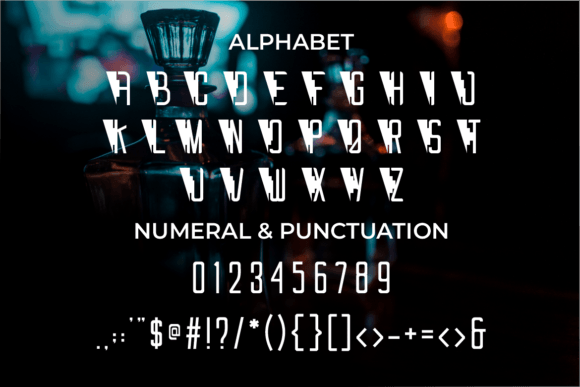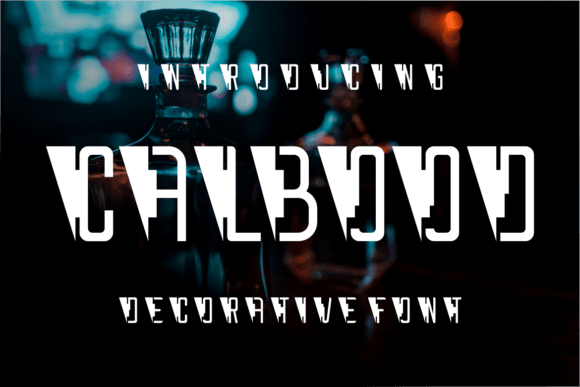
Discover the Unique Charm of Calbood Font: Elevate Your Designs with this Versatile Display Font
In the world of typography, fonts play a crucial role in conveying messages, expressing emotions, and creating visual identities. For designers, crafters, and creative enthusiasts, finding the right font can make all the difference in bringing their ideas to life. If you’re on the hunt for a font that can add a touch of personality and flair to your projects, look no further than Calbood Font. This cool and incredibly interesting display font is about to become your new favorite asset, capable of enhancing any creation with its unique charm.
What Makes Calbood Font Stand Out?
Calbood Font is not just another addition to the vast sea of typefaces. Its distinctiveness lies in its ability to blend style with versatility, making it suitable for a wide range of projects. Whether you’re working on a branding campaign, crafting a poster, designing a website, or creating digital content, Calbood Font can adapt and shine. Its unique design elements ensure that it stands out in any context, grabbing attention and leaving a lasting impression.
The Versatility of Calbood Font
One of the key strengths of Calbood Font is its incredible versatility. It’s a display font that can tackle various themes and topics with ease, transforming your designs and adding a layer of sophistication or playfulness, depending on the project’s needs. From modern and sleek to vintage and quirky, Calbood Font can embody the essence of your message, making it more engaging and memorable.
Enhance Your Creations with Calbood Font
Adding Calbood Font to your font library is akin to having a powerful tool at your disposal, ready to elevate your designs and creations. Here are a few ways Calbood Font can enhance your work:
- Branding: Use Calbood Font for logos, business cards, or any branding material to give your brand a unique voice and aesthetic.
- Digital Content: Make your social media posts, blog headers, and website titles pop with Calbood Font’s distinctive style.
- Print Materials: Whether it’s posters, flyers, or brochures, Calbood Font can add a professional yet creative touch to your print designs.
- Art and Craft Projects: For crafters and artists, Calbood Font can be a great addition to handmade cards, art journals, and other craft projects, adding a personalized and artistic flair.
Why Choose Calbood Font?
With so many fonts available, why should Calbood Font be your go-to choice? Here are a few compelling reasons:
- Uniqueness: Calbood Font offers a fresh and unique look that can set your designs apart from the crowd.
- Legibility: Despite its stylized appearance, Calbood Font maintains a high level of legibility, ensuring your message is always clear.
- Adaptability: Its versatility means you can use it across various projects and themes without worrying about it looking out of place.
Calbood Font is more than just a display font; it’s a creative asset that can transform your designs and bring your ideas to life. Its unique charm, versatility, and adaptability make it an excellent addition to any font library. Whether you’re a professional designer, a crafter, or simply someone who loves to dabble in creative projects, Calbood Font is sure to become a favorite. So, why wait? Explore the possibilities with Calbood Font today and discover how it can elevate your creations to new heights.